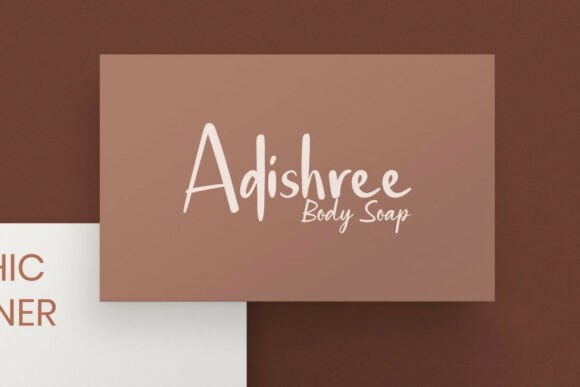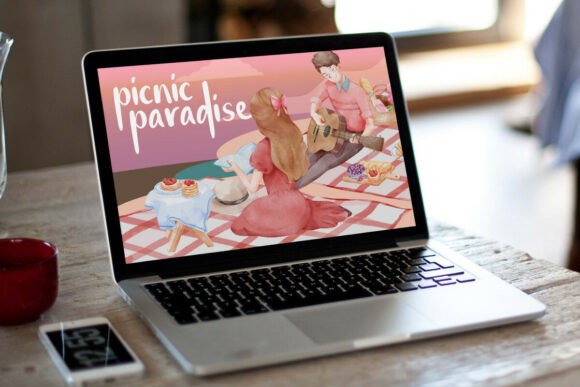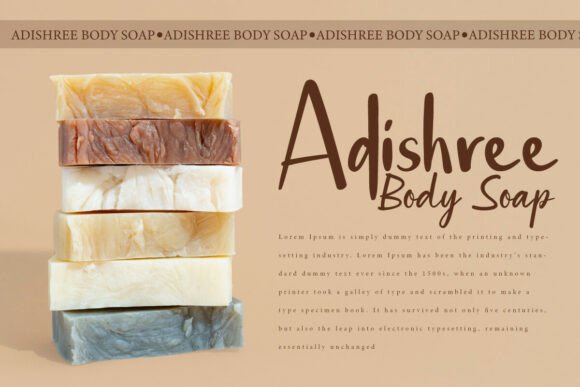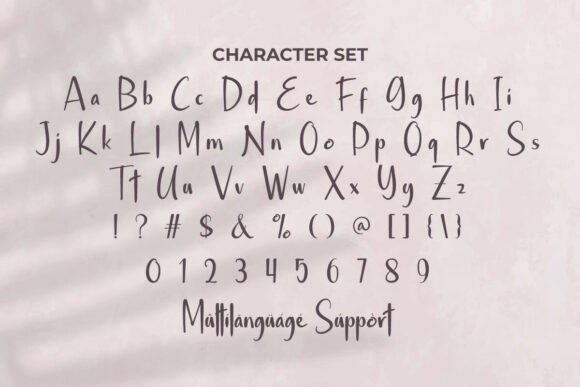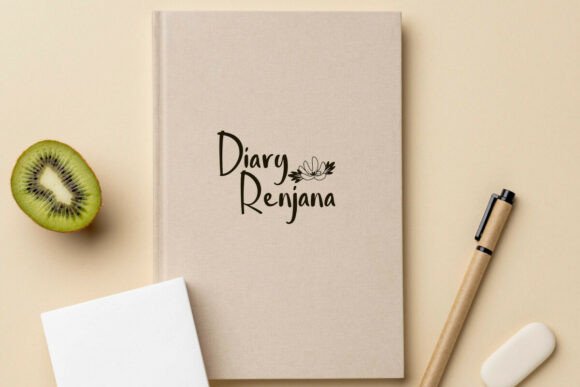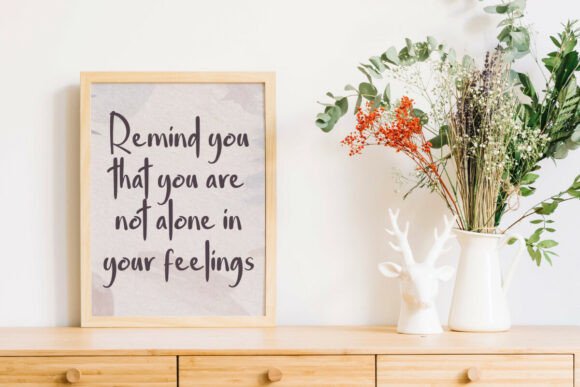
Introduction to Not for You Font
Not For You Font is a casual handwriting display font that is made with simple handcrafted brush strokes.
This font is here to help you make your digital designs more beautiful and feel authentically handmade It can be used for app view, blogs, brand identity, business cards, cover, custom mockup, greeting cards, headers, headline, invitation, print on fabrics, quotes, stationery, template design, title, website, and others.